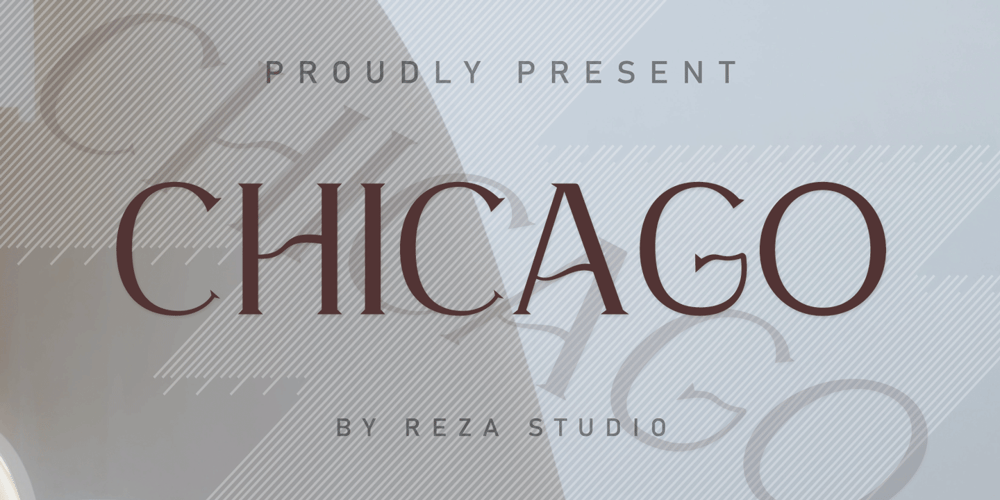
Chicago Font Family was designed by Reza Mukhtazar and published by Rezastudio. Chicago contains 2 styles and family package options. CHICAGO is a Fancy Modern vintage serif typeface with beautiful ligatures, tons of special alternative glyphs, ornament and multilingual support. It’s a very versatile font that works great in large and small sizes. Perfect for editorial projects, Logo design, Clothing Branding, product packaging, magazine headers, or simply as a stylish text overlay to any background image. 2 Weights font Lowercase and Uppercase Stylistic Alternates & Ligatures Numerals & Punctuation